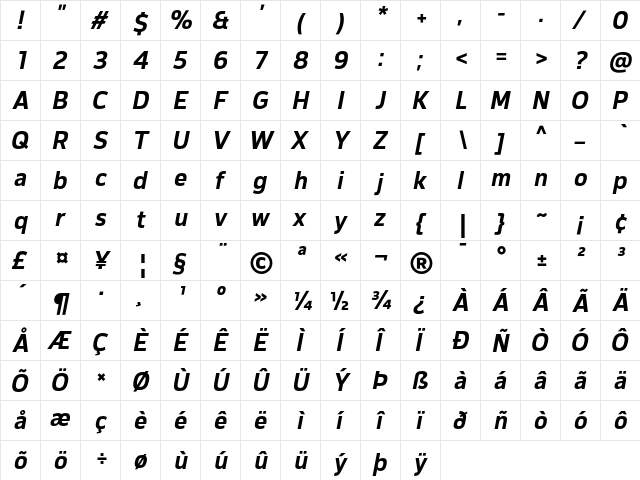
Corp Trial Bold Italic
Design Context for Corp Trial Typeface
Corp Trial is a composed and adaptable typeface that performs quietly and consistently across a wide range of design contexts. The dynamic lean of this cut emphasises speed and emphasis in any layout. The heavy weight commands attention and anchors typographic hierarchies.